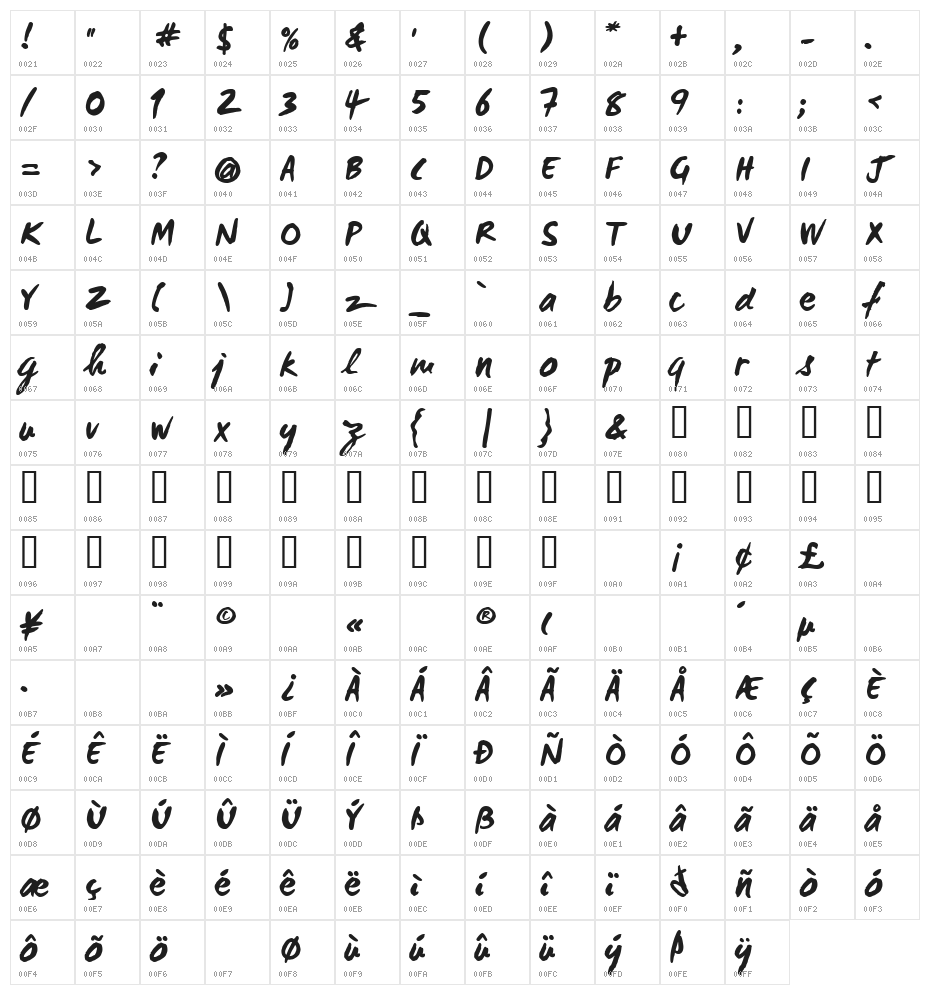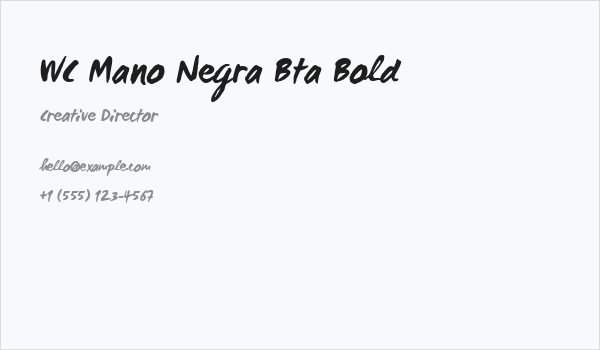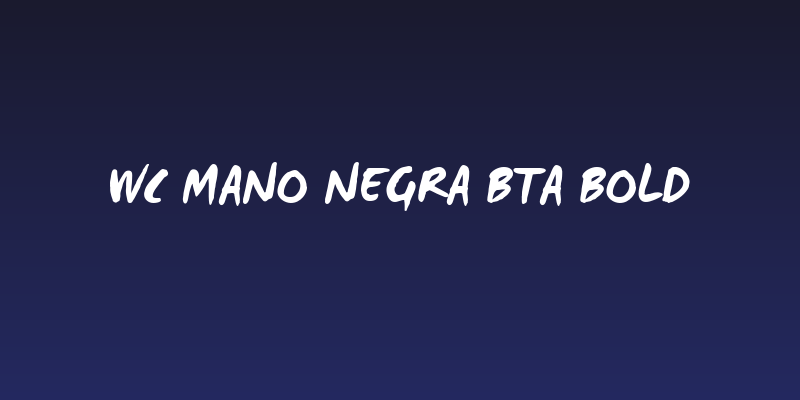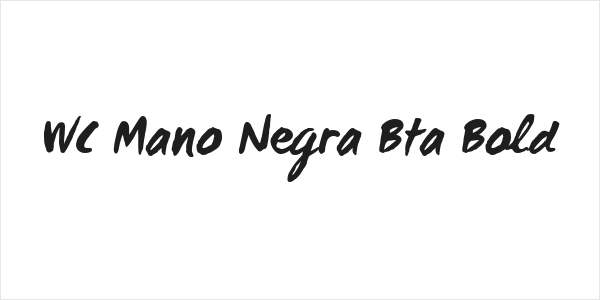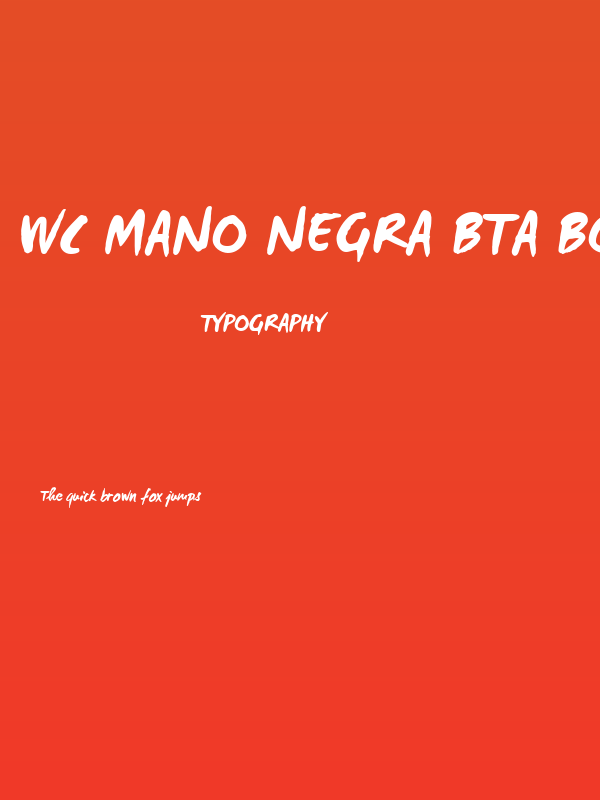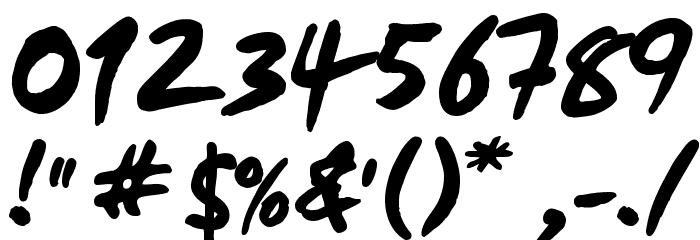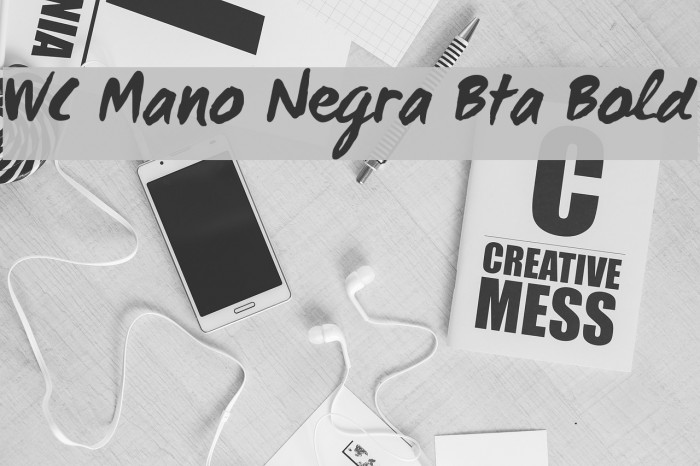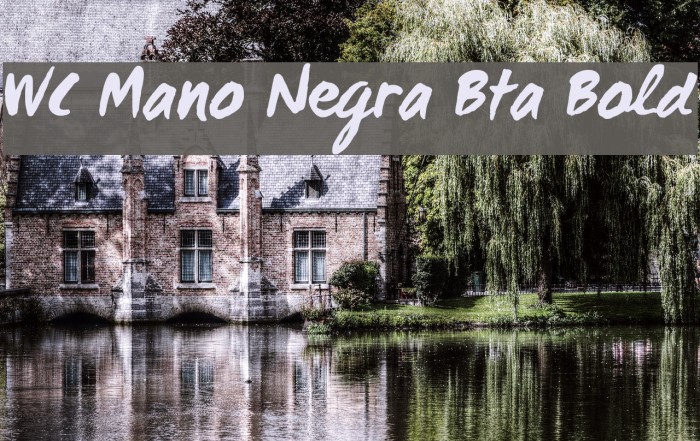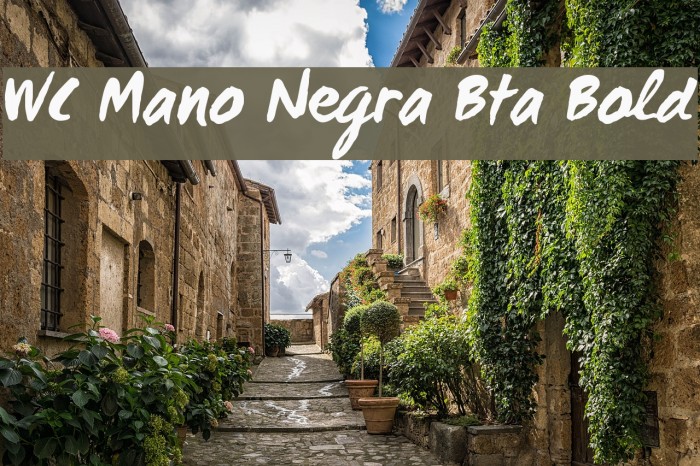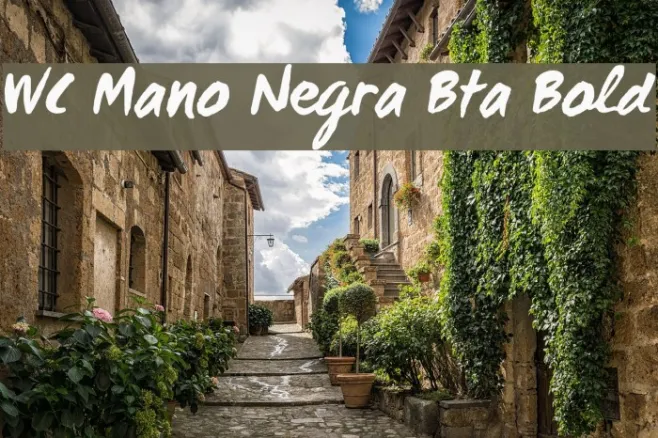
WC Mano Negra Bta Bold Font
WC Mano Negra Bta Bold Description
This font features a bold and expressive handwritten style, characterized by its dynamic and energetic strokes. The letters have a casual yet impactful appearance, with varying thickness that adds a sense of movement and personality. The uppercase and lowercase letters are well-balanced, maintaining a consistent flow throughout the text. Numbers and special characters are crafted with the same lively flair, making them stand out distinctly. This font's overall aesthetic is both artistic and approachable, ideal for projects that require a personal touch.
| Use Case | Logos, Headlines, Posters |
| Proposed Projects | Ideal for branding, posters, invitations, and any creative project that benefits from a personal, artistic touch. |